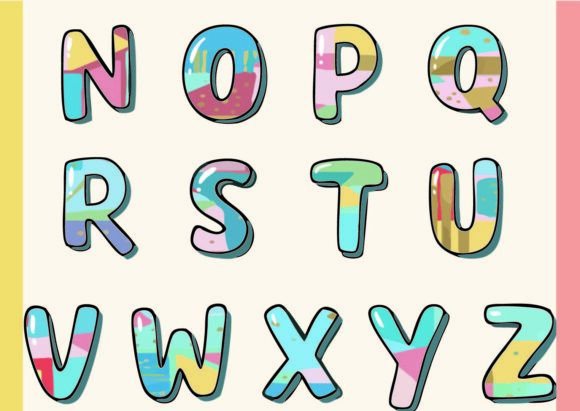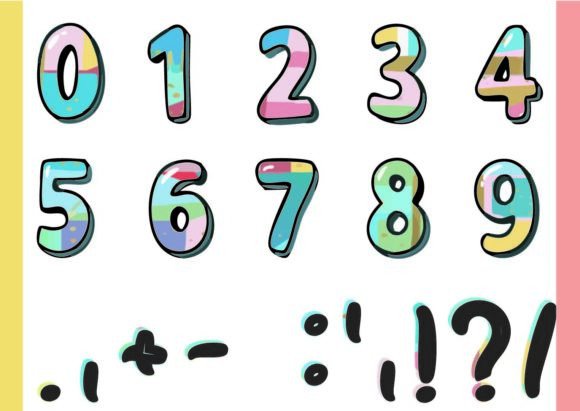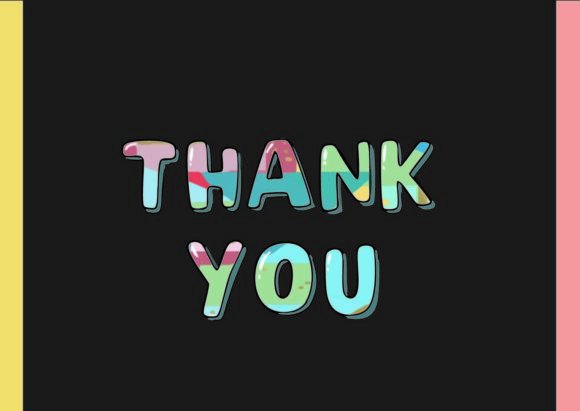
Introducing Ember Font: A Colorful Heaven for Designers and Crafters
Are you tired of traditional fonts and looking for something that can add a pop of color to your designs? Look no further than Ember Font, a revolutionary color font that is taking the design world by storm. In this article, we’ll dive into the world of Ember Font, exploring its unique features, compatibility, and uses.
What is Ember Font?
Ember Font is a color font, also known as a chromatic font, that boasts a unique characteristic: every single glyph has a different set of colors. This means that each letter, number, and symbol is a miniature masterpiece, with intricate sets of paths and connections that make it a typographic painting. The result is a colorful heaven that can elevate your designs to new heights.
What Makes Ember Font So Special?
So, what sets Ember Font apart from traditional fonts? Here are just a few reasons why designers and crafters are falling in love with this innovative font:
- Unique Color Schemes: Each glyph has its own unique color palette, ensuring that your designs will never be boring or monotonous.
- Intricate Designs: The complex sets of paths and connections in each glyph make it a true typographic painting.
- Versatility: Ember Font can be used in a range of design applications, from digital graphics to print materials.
Whether you’re a seasoned designer or a crafter looking for a new creative outlet, Ember Font offers endless possibilities. Here are some tips to help you make the most of this amazing font:
- Mix and Match Glyphs: Combine different glyphs to create complex, multi-colored designs.
- Experiment with Color Schemes: Try out different color palettes to find the perfect combination for your design.
- Use in Digital and Print Materials: Ember Font is perfect for both digital graphics and print materials, such as business cards, brochures, and posters.